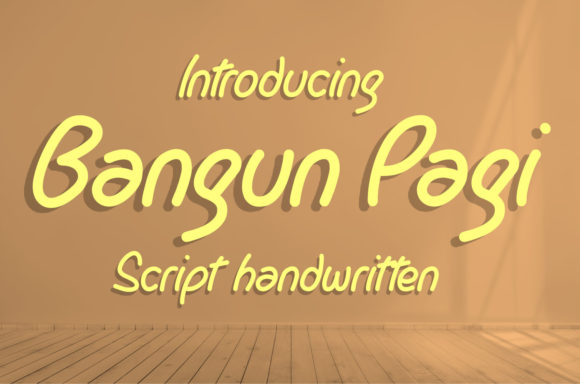
Bangun Pagi Font: Elevate Your Designs with Elegance and Sophistication
In the world of typography, a well-crafted font can make all the difference in transforming a design from ordinary to extraordinary. For designers and crafters seeking a beautiful and refreshing look, Bangun Pagi font is an excellent choice. This lovely and delicate script font exudes elegance and class, making it perfect for a variety of design projects.
What is Bangun Pagi Font?
Bangun Pagi is a carefully crafted script font designed to add a touch of sophistication and refinement to your designs. The name “Bangun Pagi” translates to “wake up” in English, which reflects the font’s fresh and revitalizing feel. With its delicate strokes and elegant curves, this font is sure to capture the attention of your audience and leave a lasting impression.
Key Features of Bangun Pagi Font
- Elegant and Delicate Design: Bangun Pagi font boasts a beautiful, hand-crafted design that exudes elegance and refinement.
- Script Style: This font features a classic script style with flowing connections between letters, creating a sense of fluidity and continuity.
- Highly Readable: Despite its delicate nature, Bangun Pagi font is highly readable, making it suitable for use in a variety of design projects, from titles and headings to body text.
- Multilingual Support: This font supports multiple languages, allowing you to use it in a wide range of design projects, regardless of your target audience.
Use Cases for Bangun Pagi Font
Bangun Pagi font is versatile and can be used in various design projects, including:
- Branding and Logo Design: Add a touch of elegance and sophistication to your brand identity with Bangun Pagi font.
- Wedding and Event Design: This font is perfect for creating beautiful wedding invitations, stationery, and event materials.
- Packaging Design: Use Bangun Pagi font to create eye-catching packaging designs that stand out on store shelves.
- Digital Design: This font is suitable for use in digital designs, such as website headers, social media graphics, and email marketing materials.
Why Choose Bangun Pagi Font?
With so many fonts available, why choose Bangun Pagi? Here are a few reasons:
- Unique and Distinctive: Bangun Pagi font has a unique and distinctive design that sets it apart from other fonts.
- Elegant and Sophisticated: This font exudes elegance and sophistication, making it perfect for designs that require a touch of refinement.
- High-Quality Design: Bangun Pagi font is carefully crafted to ensure high-quality design and readability.
In conclusion, Bangun Pagi font is a beautiful and elegant script font that can elevate your designs to new heights. With its delicate strokes, elegant curves, and highly readable design, this font is perfect for designers and crafters seeking a fresh and refreshing look. Whether you’re working on a branding project, wedding design, or packaging design, Bangun Pagi font is an excellent choice. So why not give it a try and experience the elegance and sophistication it has to offer?